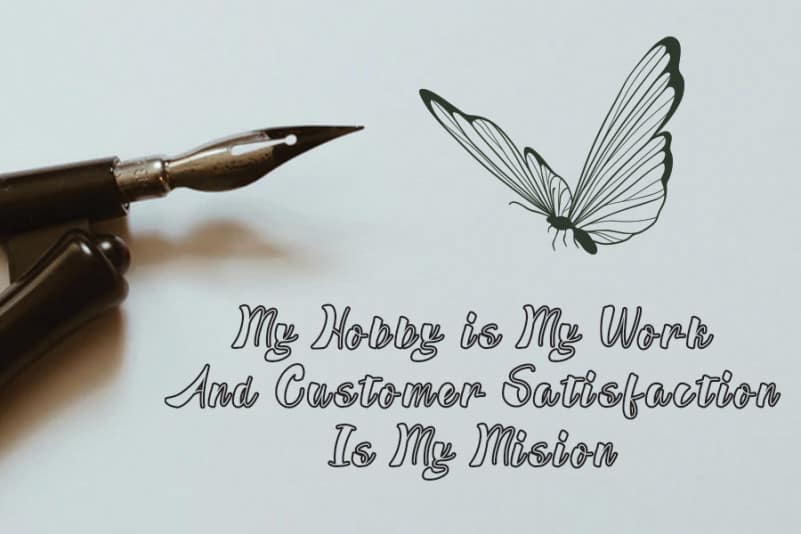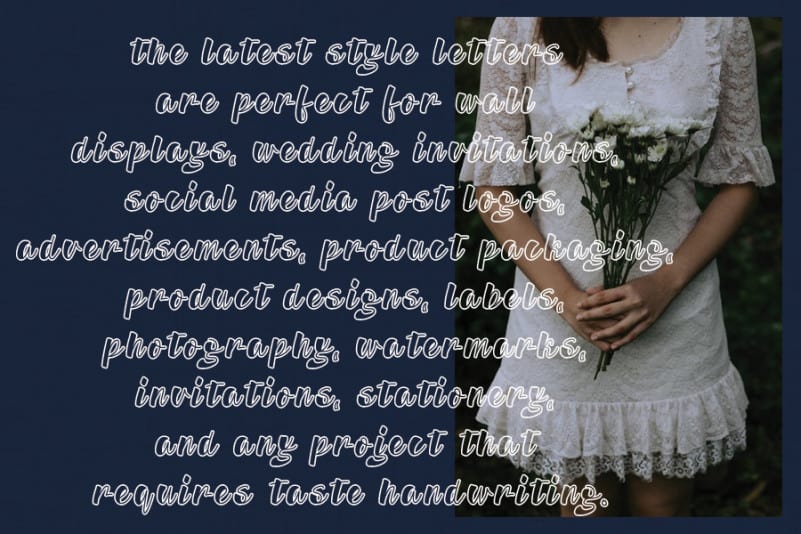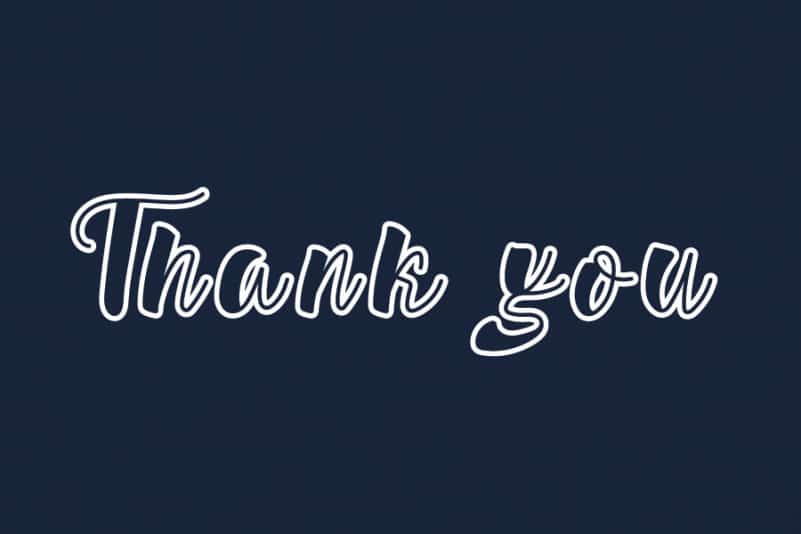
Lolenia Script Font
Lolenia Script Font is a beautiful and round lettered display font. Fall in love with its incredibly versatile style and use it to create gorgeous wedding invitations, beautiful stationary art, eye-catching social media posts, and much more!